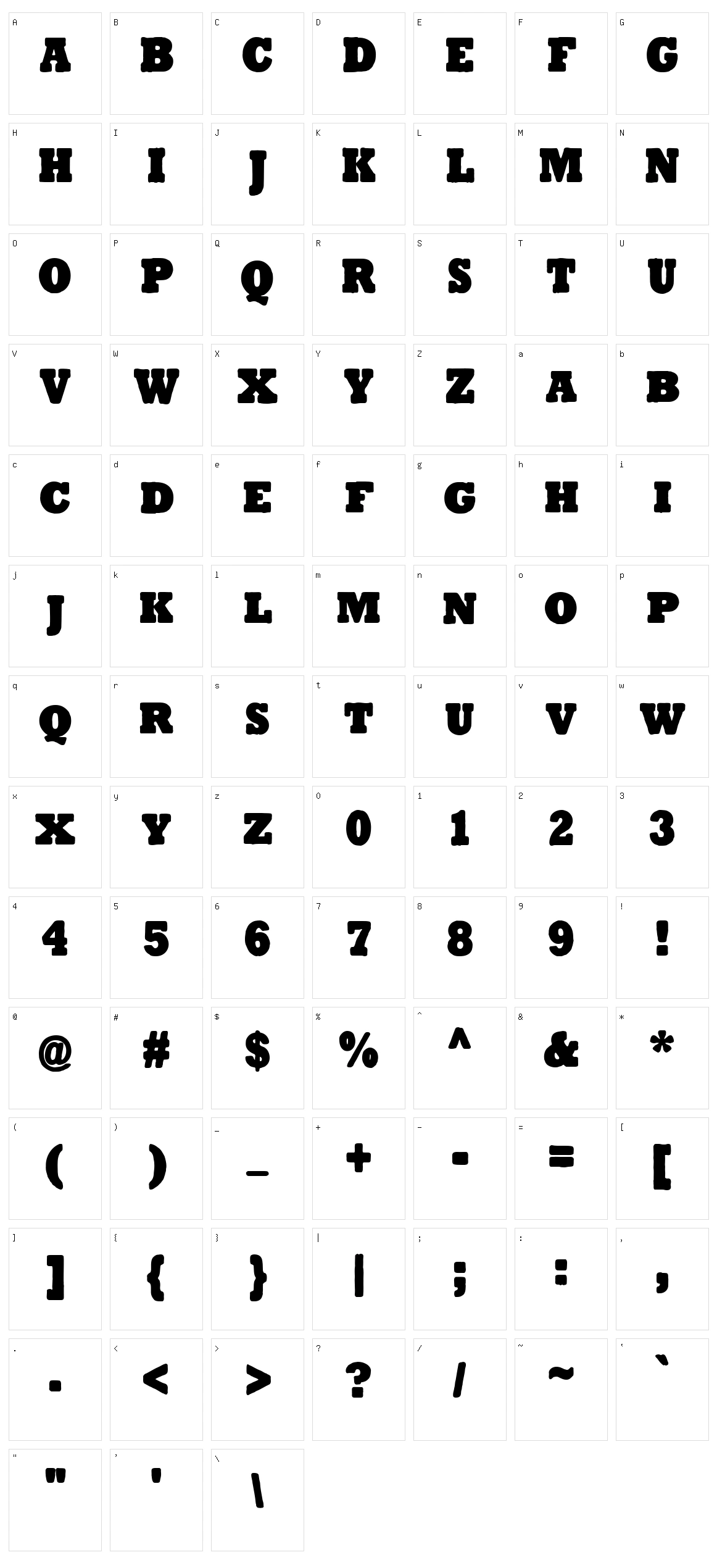
TENDER GOLIATH
A TrueType Font by S. John Ross
TENDER GOLIATH is a full-U.S.-keyboard set with a few select extras thrown in. TENDER GOLIATH SMALL-CAPS is much the same only, you know. Small-capped. And stuff.